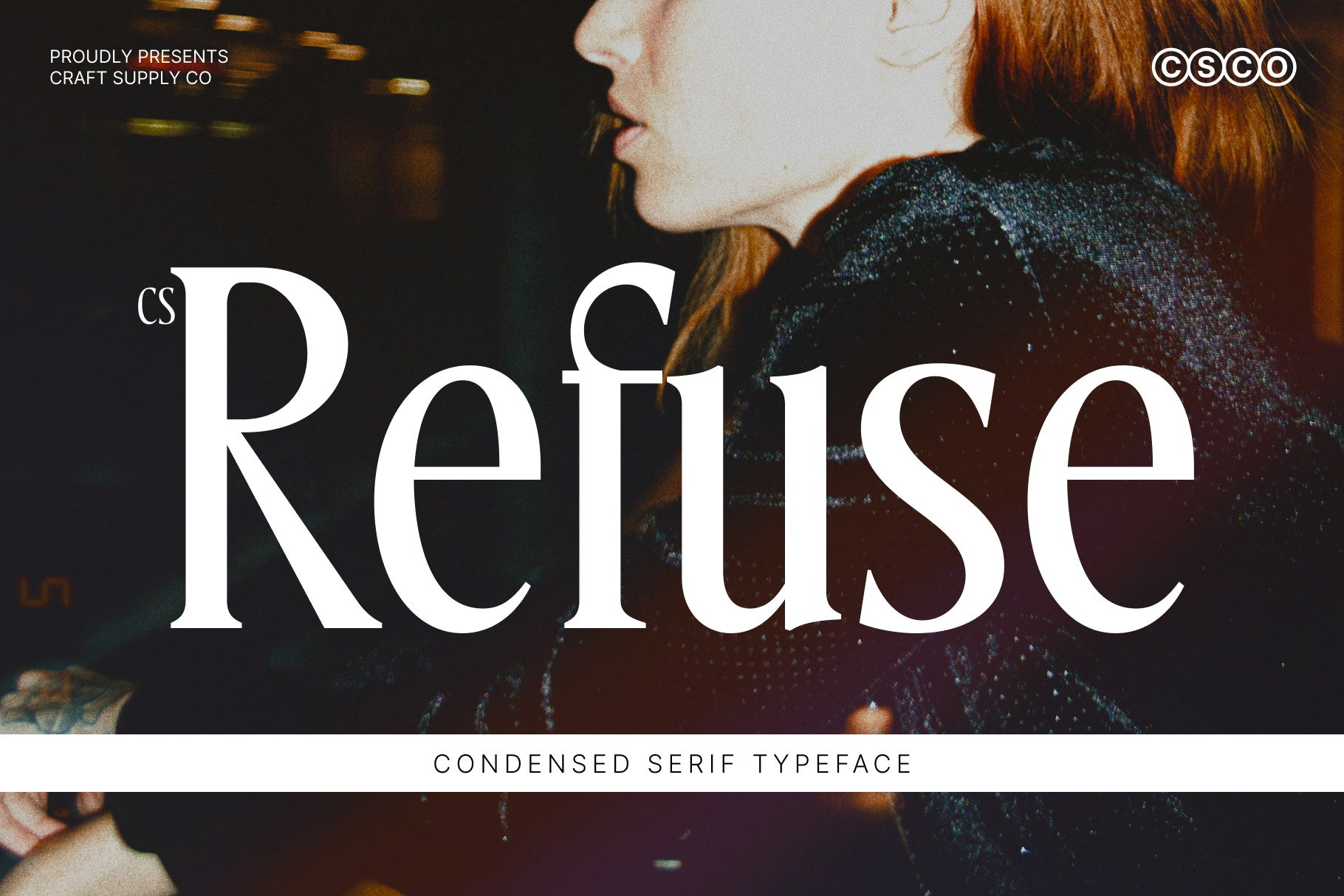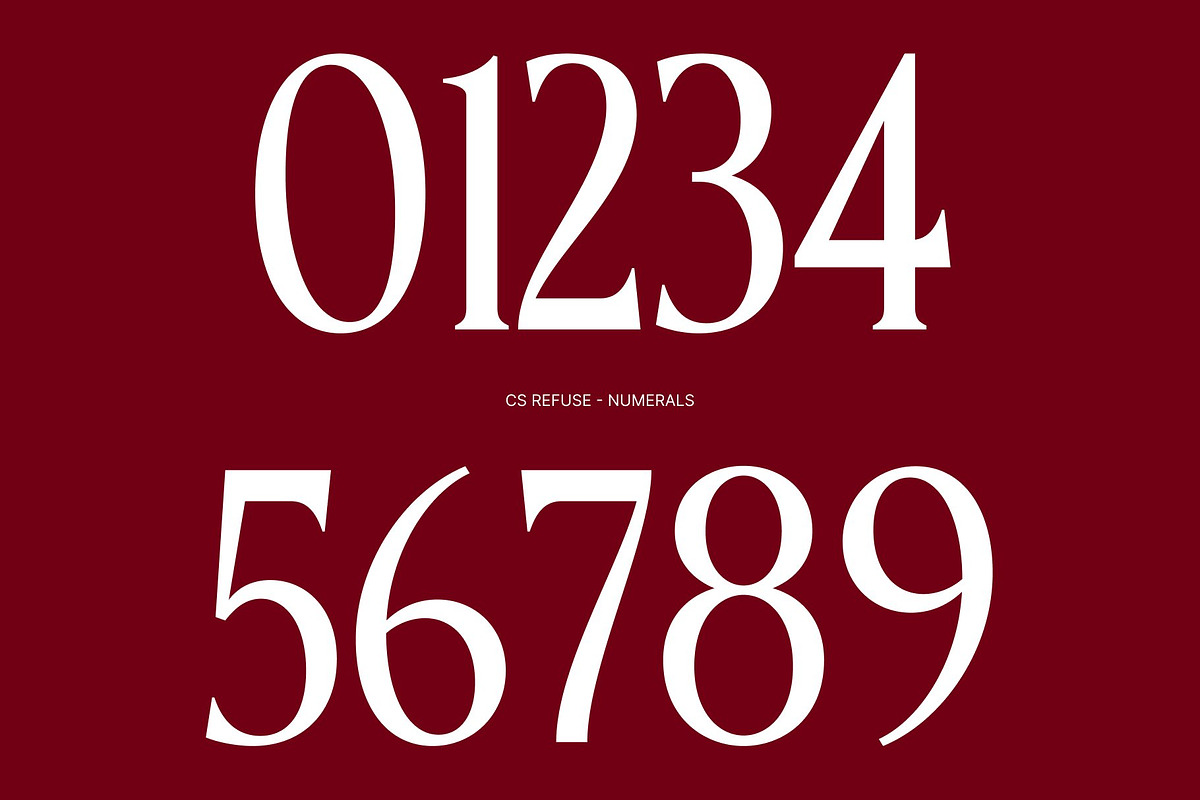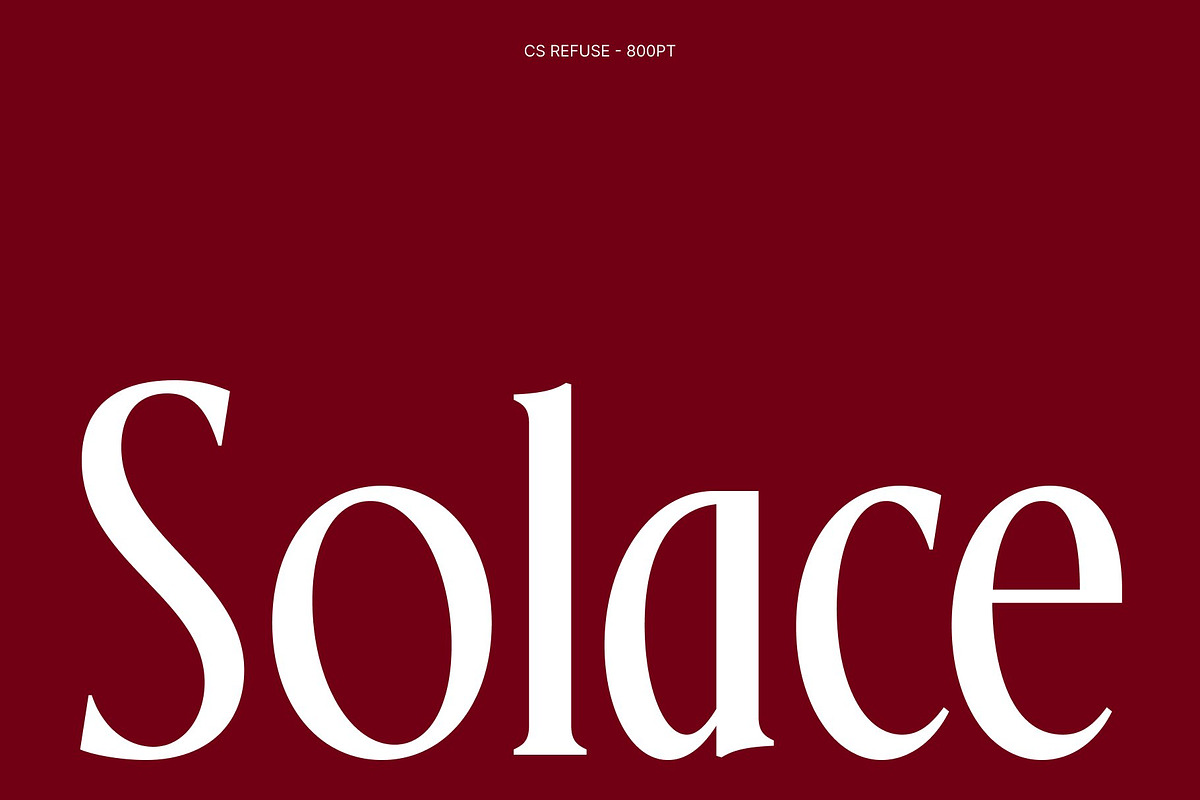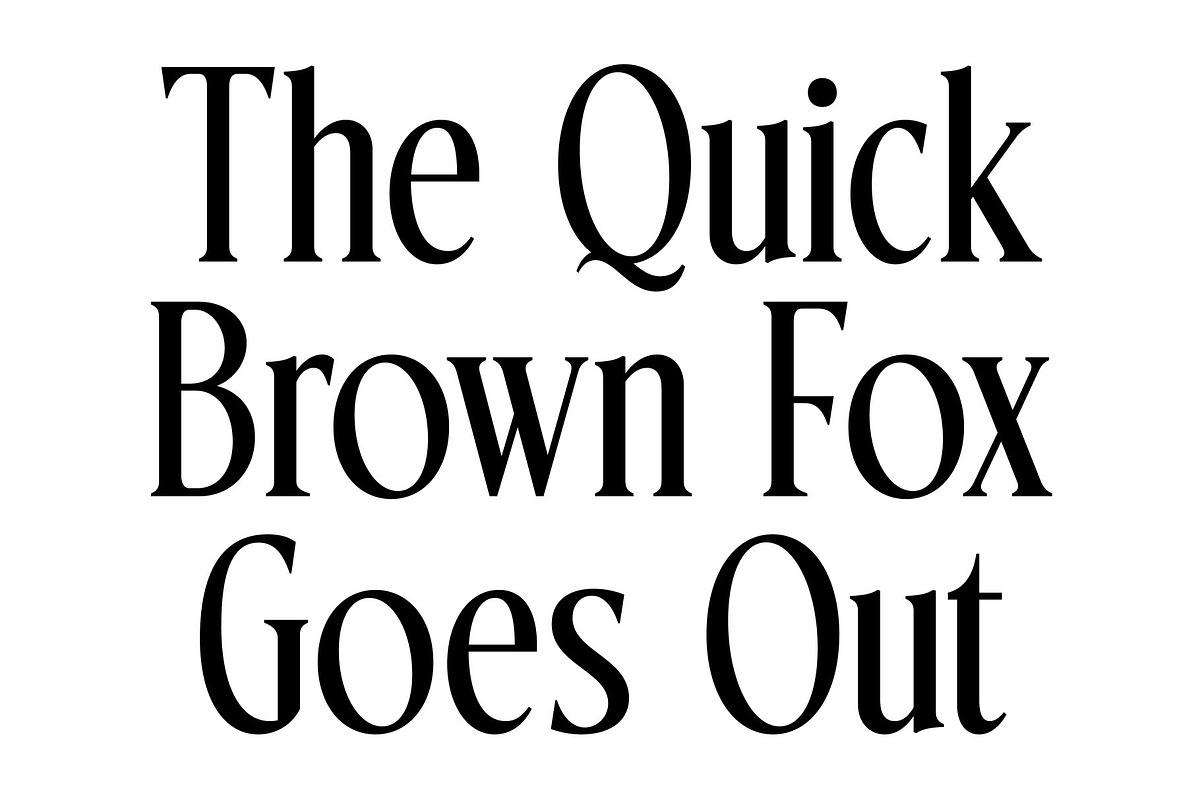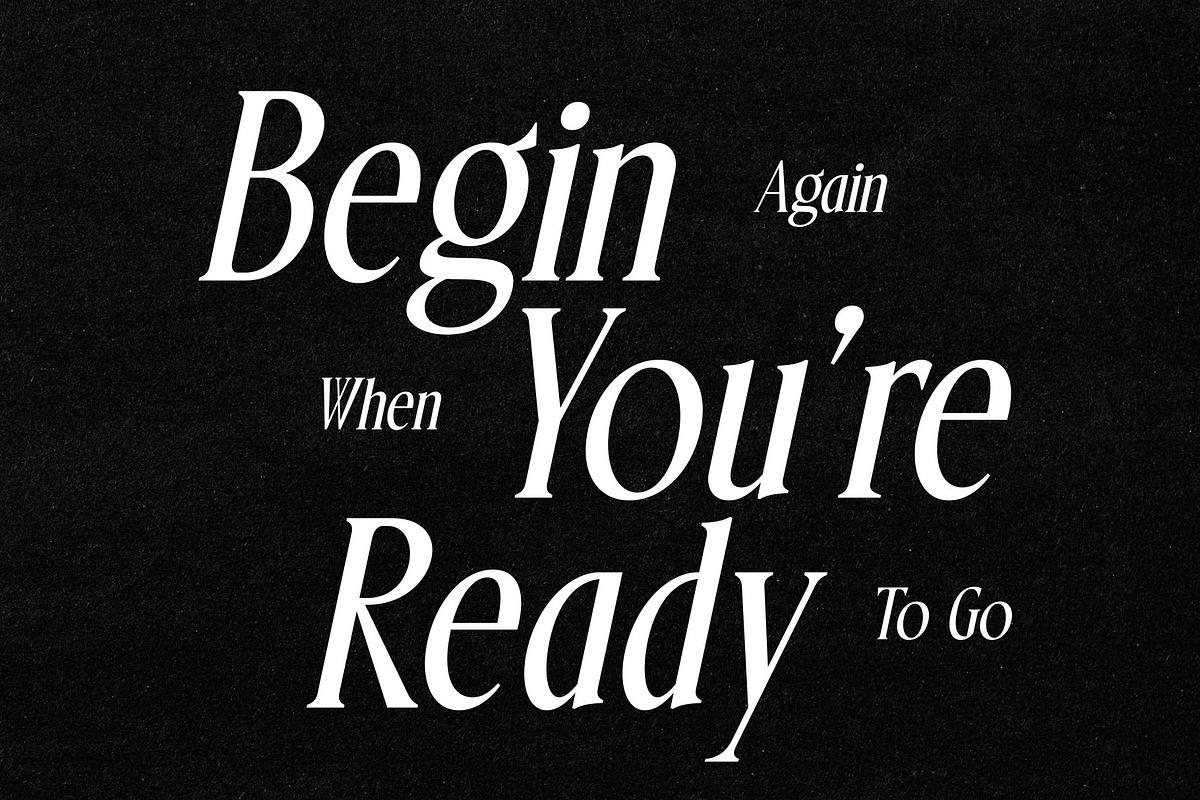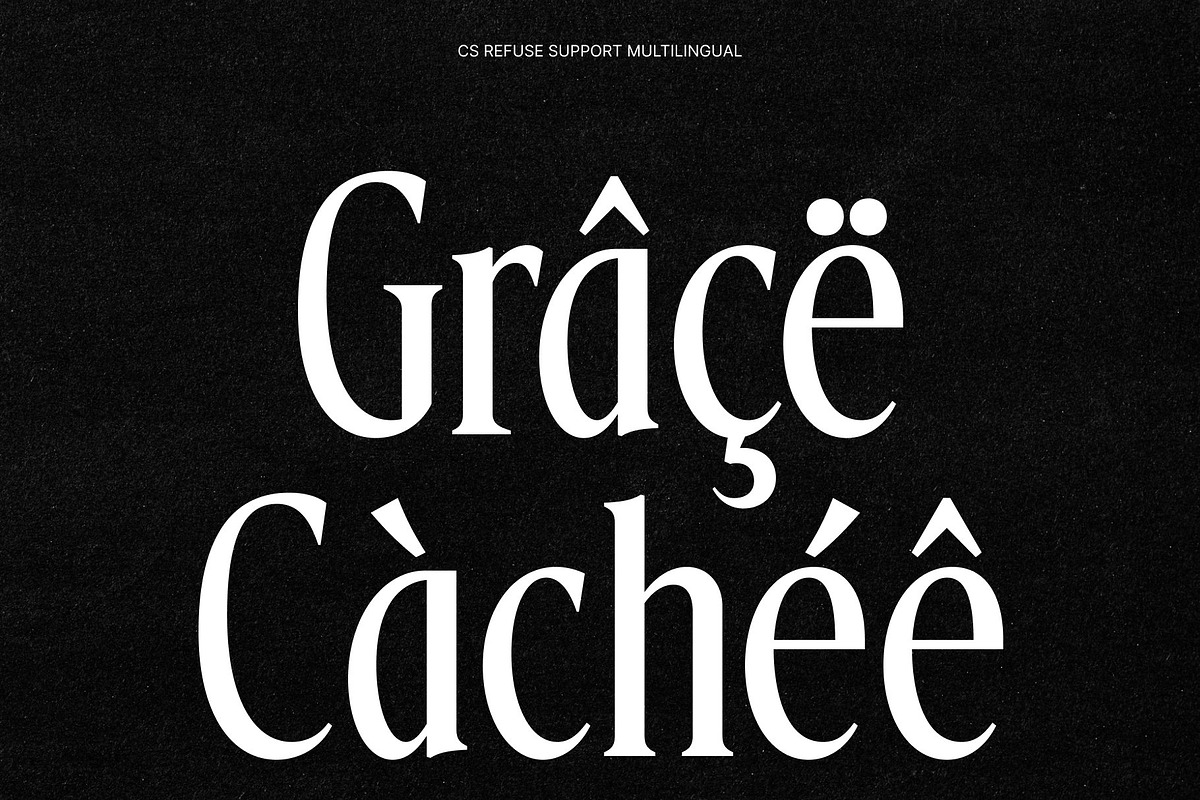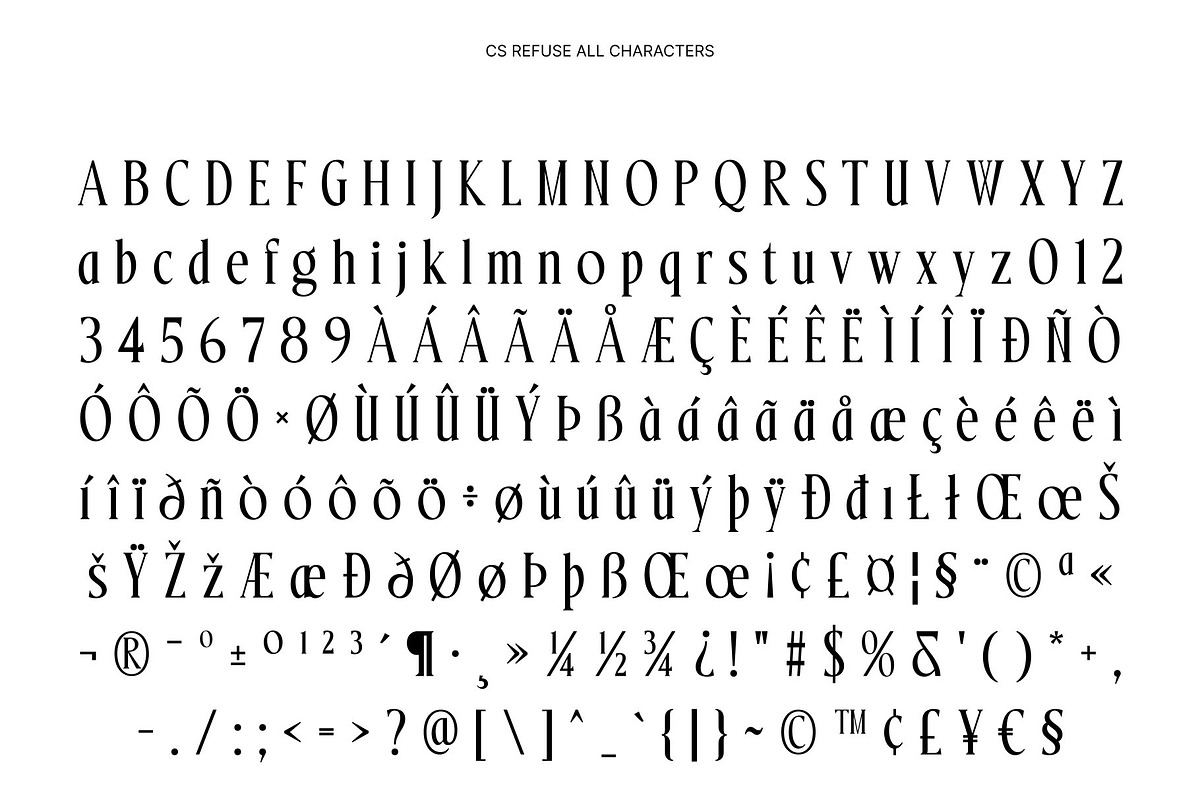
CS Refuse – Contemporary Font
CS Refuse – Contemporary with Refined Simplicity
Serif Font with Sleek and High-End Character This font is a refined serif font designed to deliver a sleek, modern, and high-end visual impression. Defined by elegant curves and elongated details, this typeface presents a sophisticated silhouette that feels polished without appearing rigid. Its clean construction and balanced proportions give a contemporary elegance that works seamlessly across both digital and print environments.
Elongated Details with Refined Curves The elongated letterforms of this font create a graceful rhythm and a sense of visual flow. Carefully shaped curves soften the structure, adding warmth and personality to the design. These refined details enhance legibility while contributing to a luxurious and confident appearance. The result is a serif font that feels calm, composed, and thoughtfully crafted.
Clean Simplicity with Professional Personality This font is designed with clarity and balance at its core. Its simplicity allows content to remain clear and readable, while subtle stylistic nuances prevent it from feeling plain or mechanical. This balance makes the font ideal for professional use where elegance and approachability must coexist.
Versatile for Headlines, Branding, and Packaging Designed for broad creative flexibility, This font is well suited for headlines, branding, posters, product packaging, editorial layouts, and visual identities. Its understated modern feel allows it to adapt effortlessly to a wide range of design styles without overpowering the composition.
- CS Refuse Regular
- CS Refuse Italic
- CS Refuse Reverse Italic